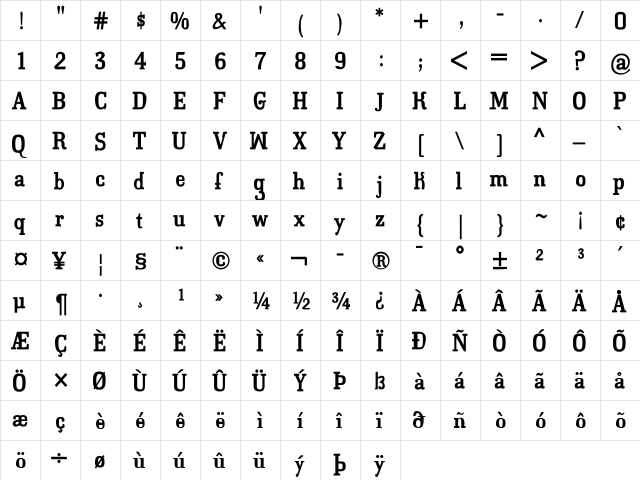
Calvino Heavy
| Foundry | Designed by Elliott Peter Earls, The Apollo Program |
Design Context for Calvino Typeface
Calvino offers clean, dependable letterforms without strong stylistic allegiance, making it a practical choice for designers who need flexibility.